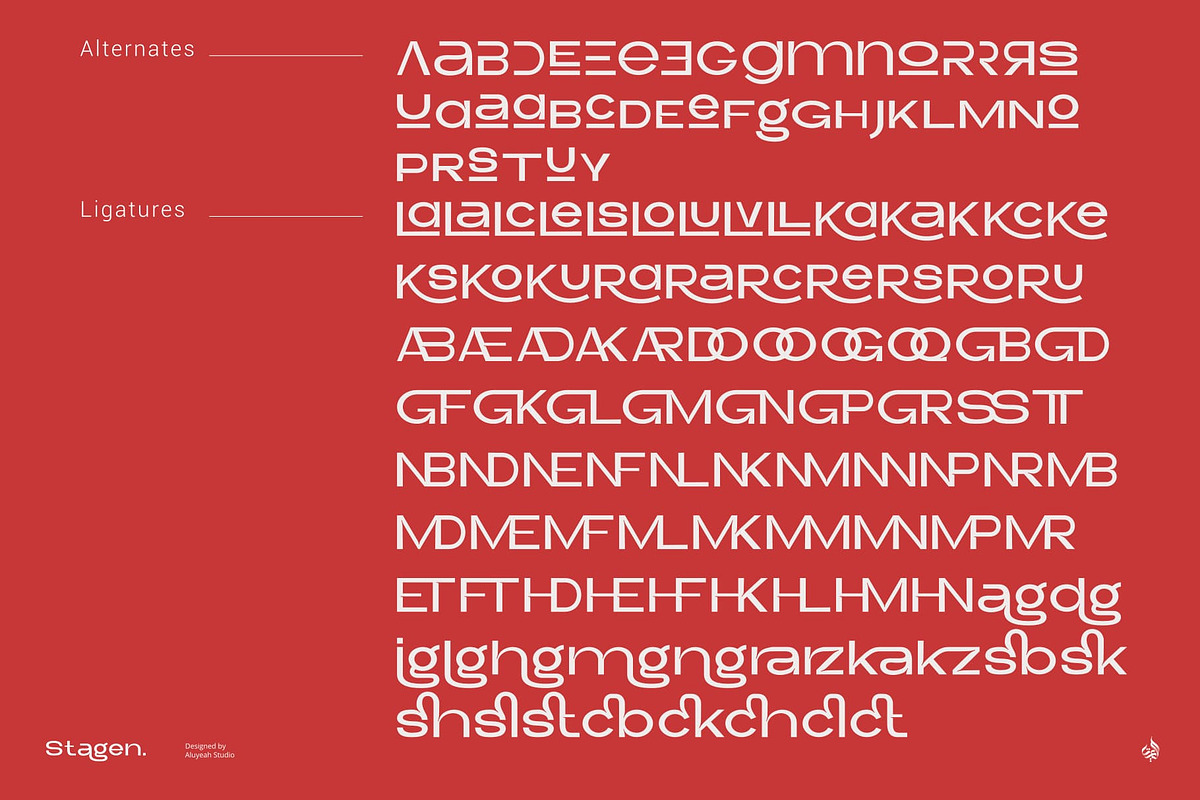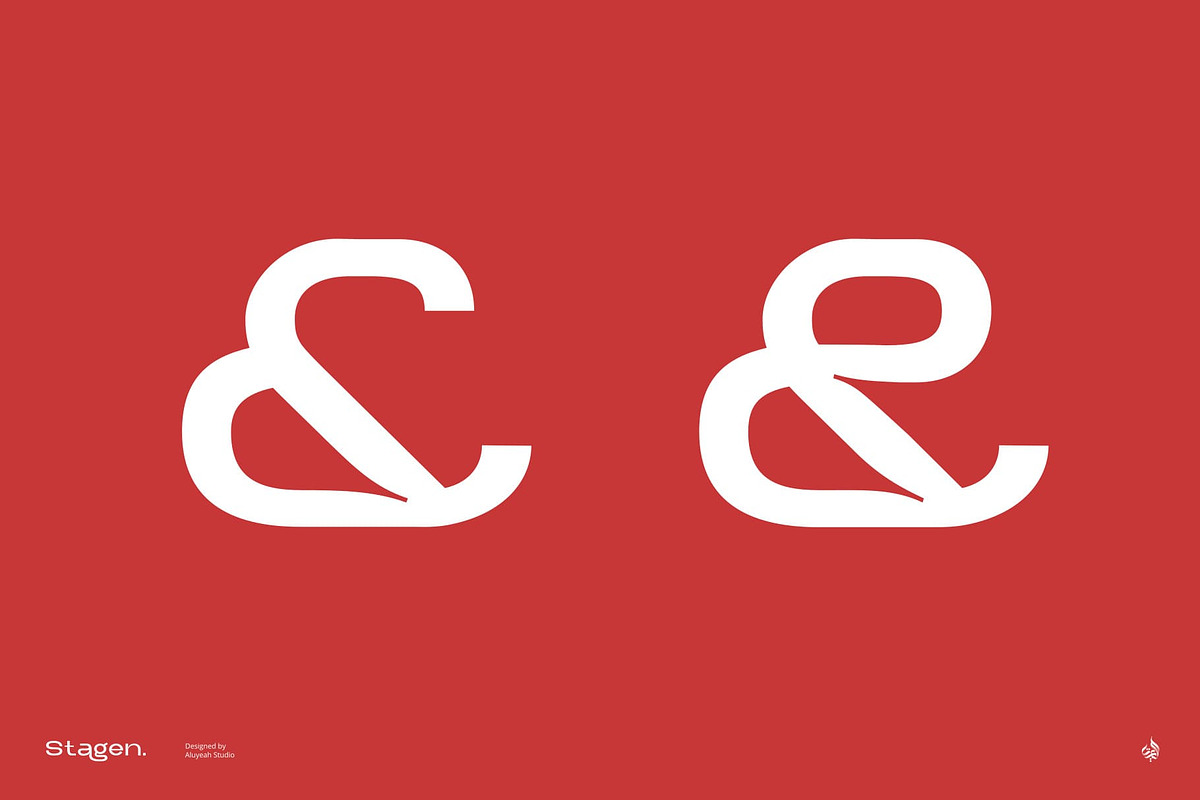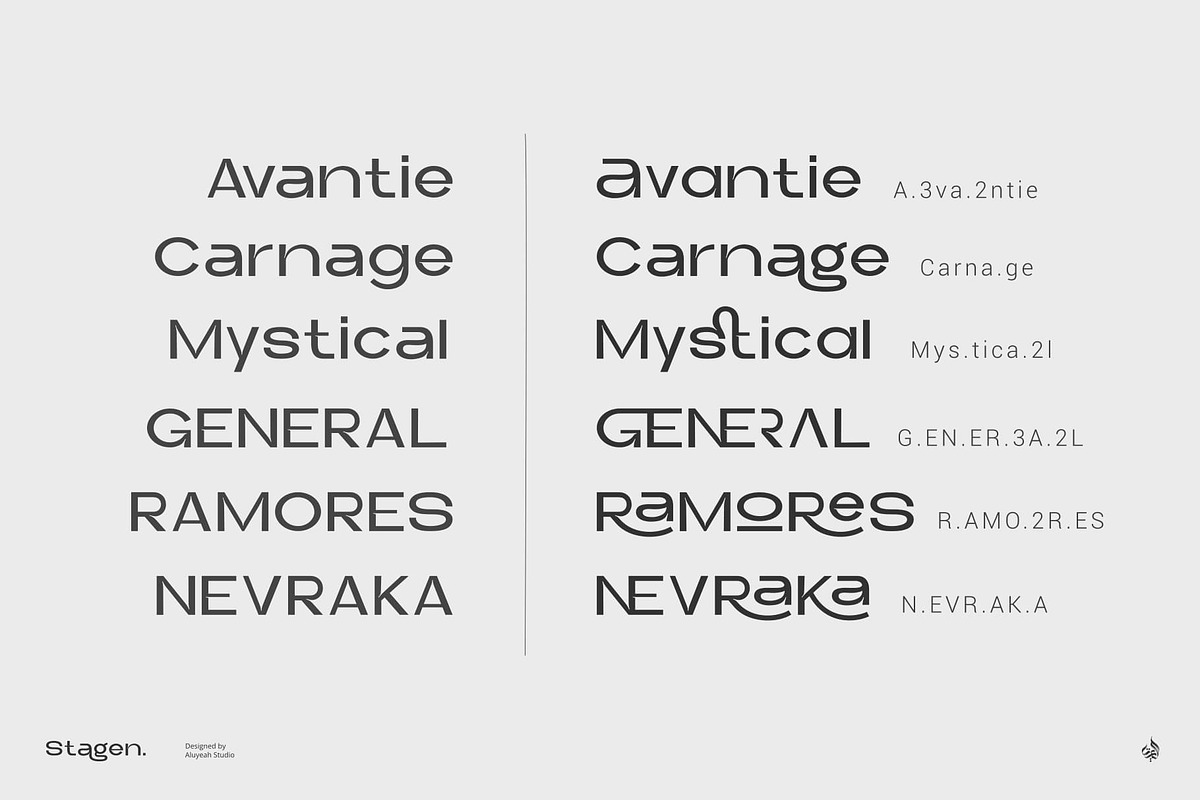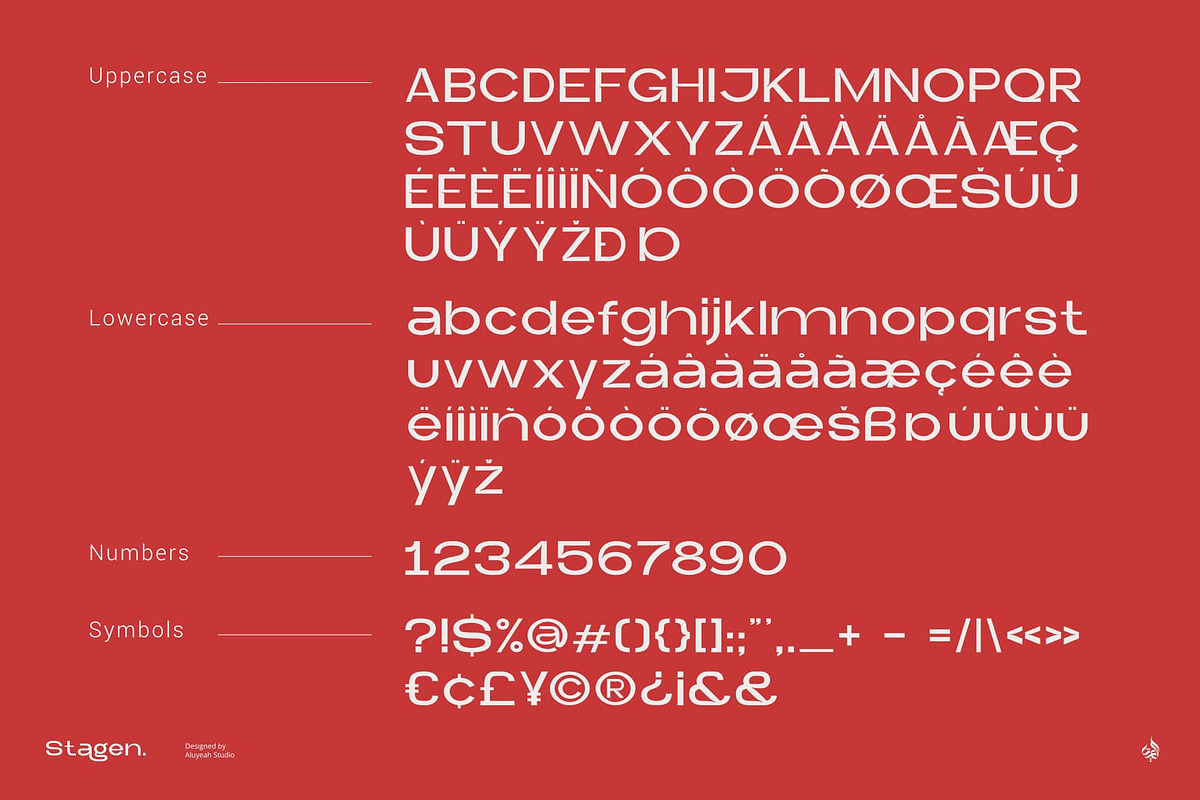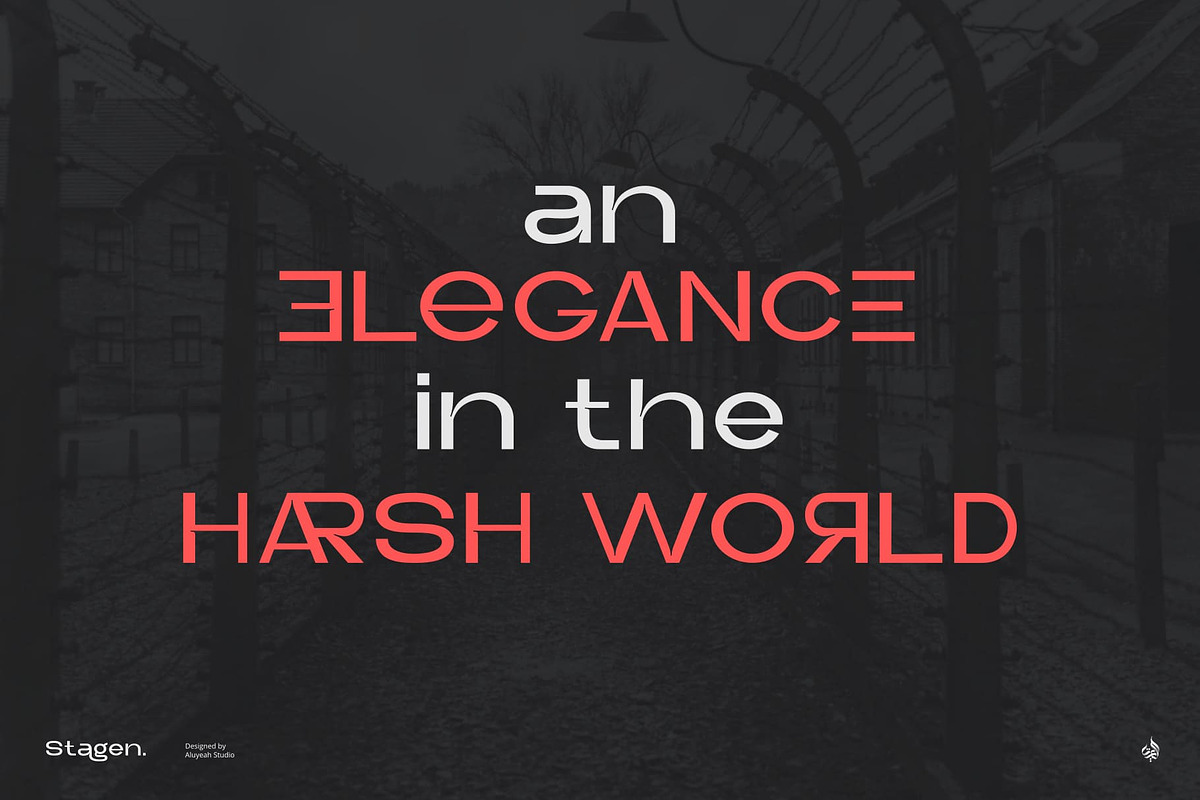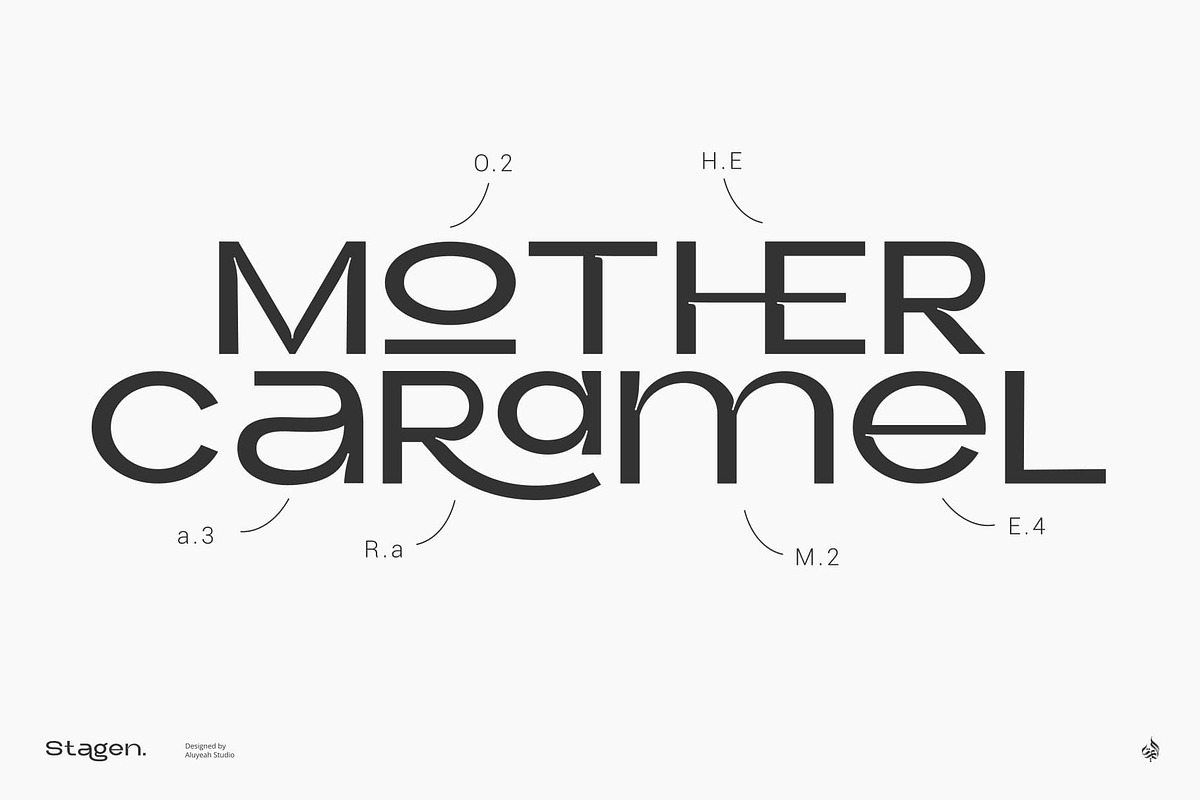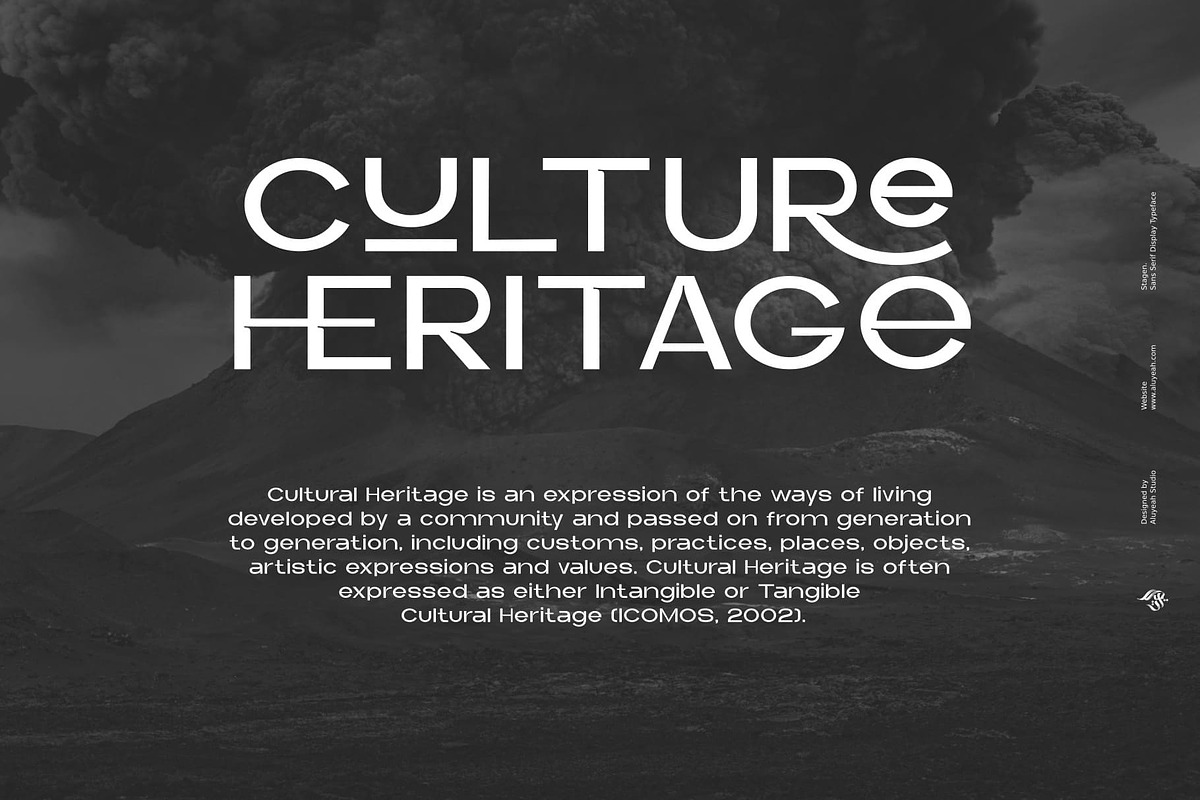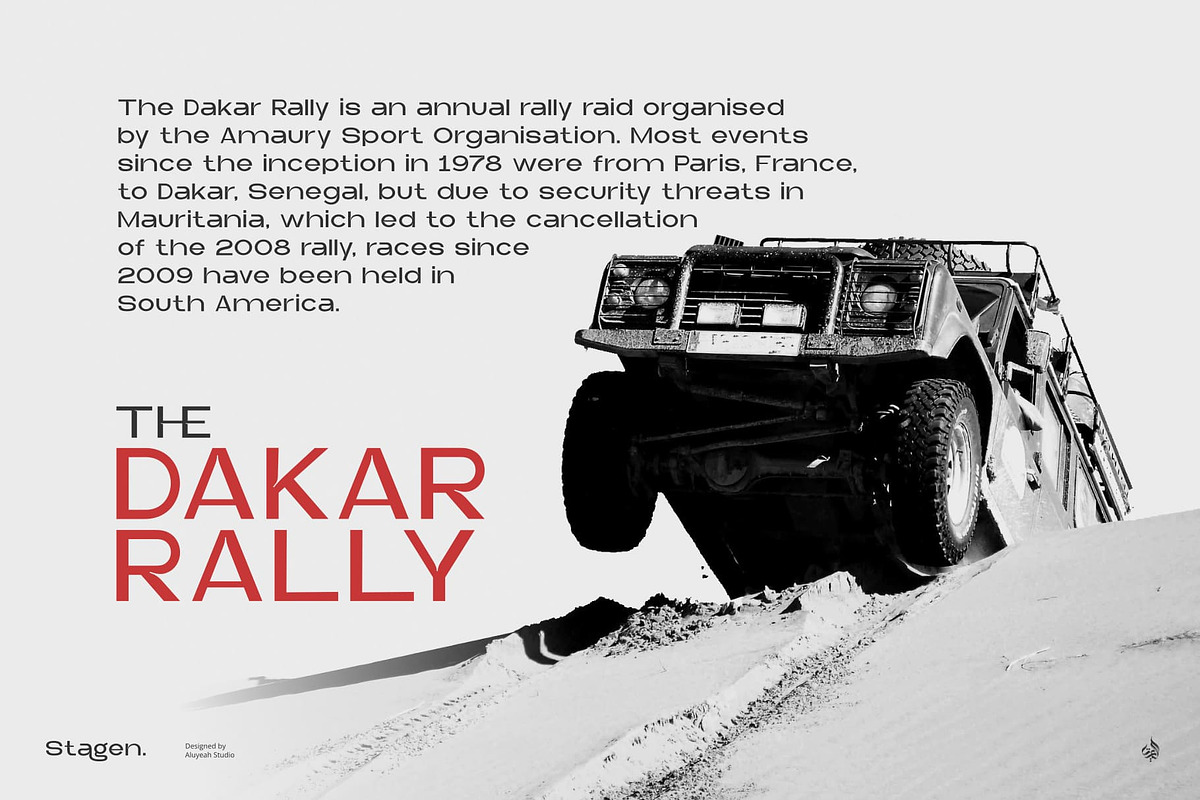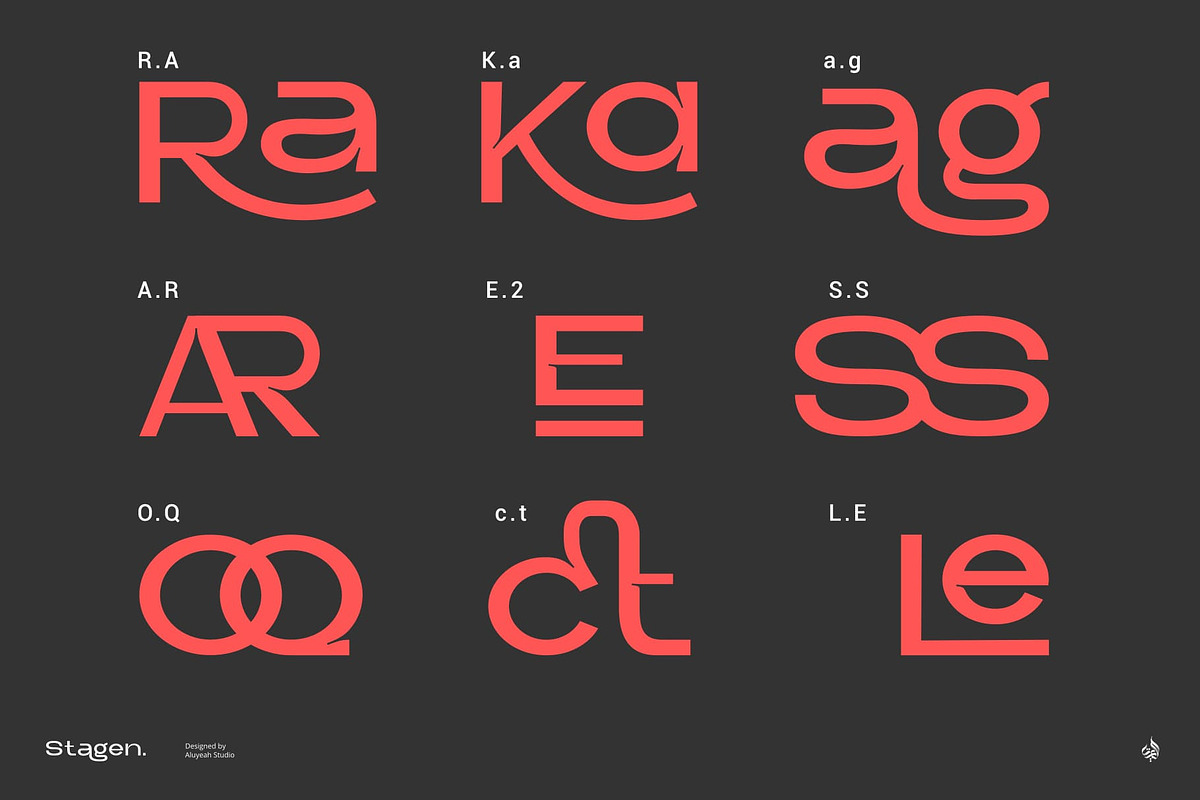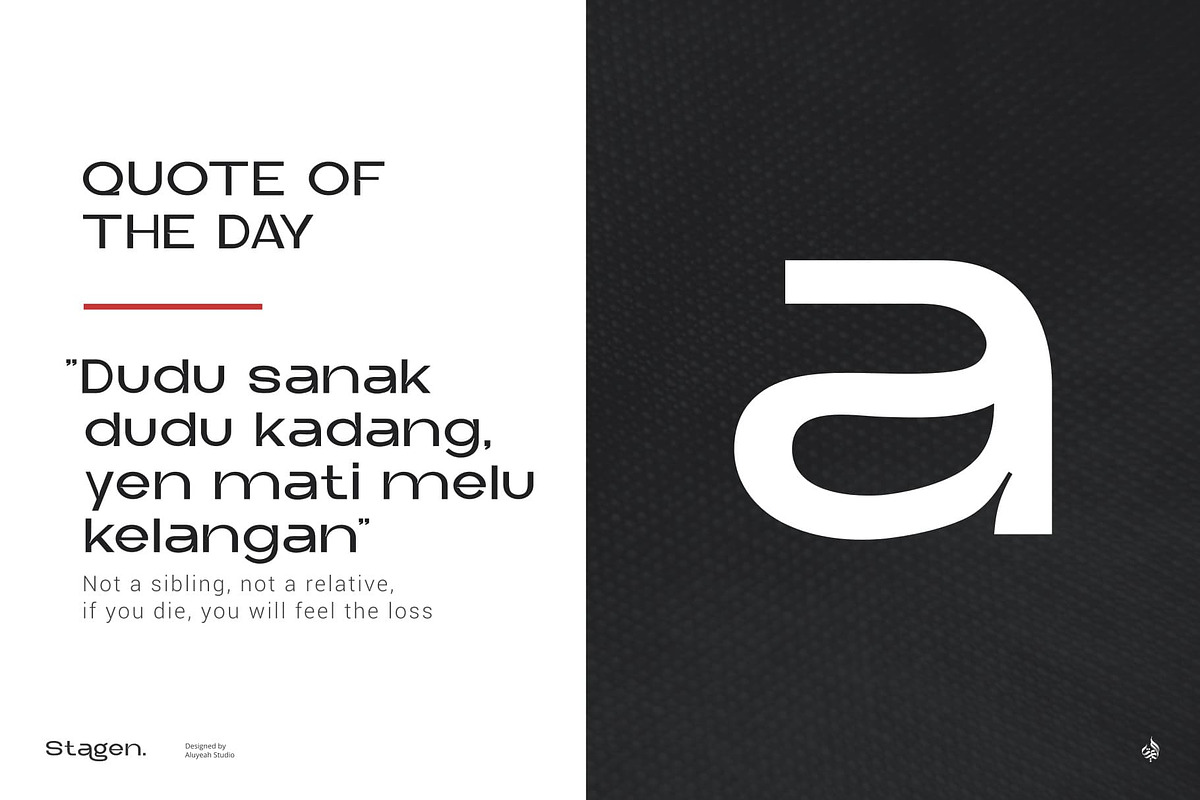
Stagen | Modern Display Sans Serif
Stagen is a cloth with a length ranging from 5-10 meters and a width of about 15 cm which is usually used by traditional Javanese women as part of the traditional kebaya dress. The stagen is wrapped around the stomach to help maintain posture and "lock" the jarik cloth on the kebaya. Stagen existed before World War II in Indonesia and became an elegance in the harsh world at that time.
Inspired by the rich culture, Stagen is a modern sans serif typeface that has an upright and sturdy impression, with unique curves in it. A simple, yet distinctive, elegant font that can be applied to many areas of design. Coming with 130+ stunning and super easy to use alternates and ligatures.
- OpenType support
- Multilingual support (15 languages)
- Super Easy to Use alternates - It's OpenType support but you can easly call alternates character using special combination like A.2 R.3 L.A L.a etc so you don't need special software.
To get results like the preview just type Stag.4en.